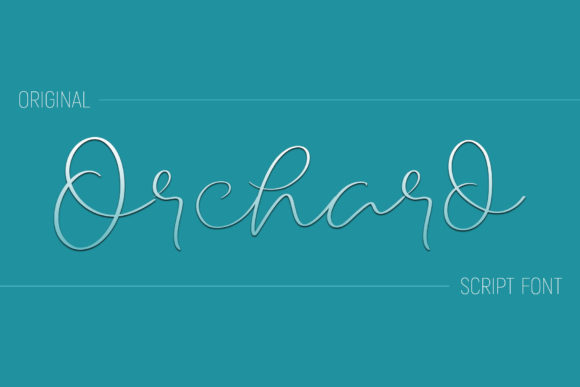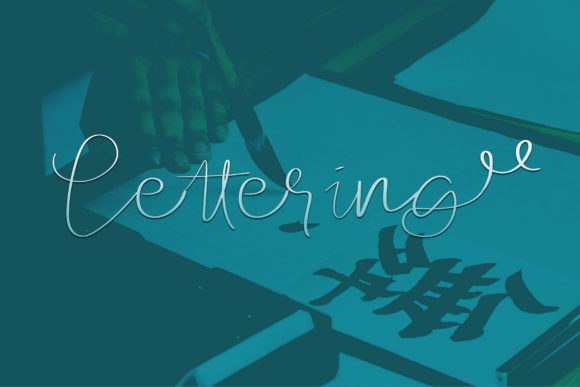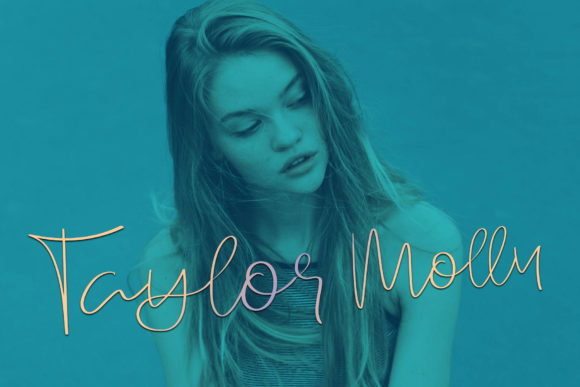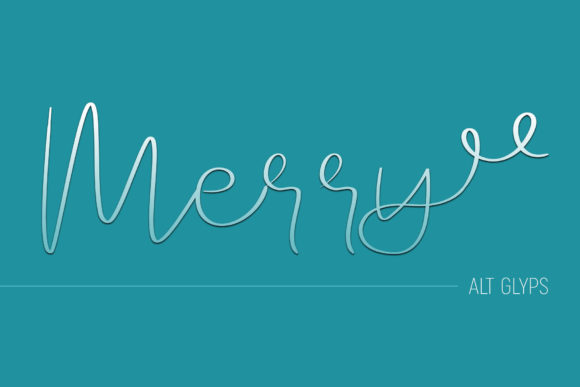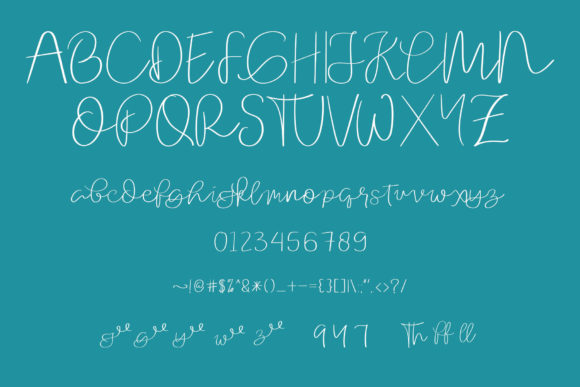
HomeScript FontsOrchard Font Script Fonts Orchard Font FacebookXPinterestWhatsApp Orchard Font Poster 2 Orchard Font Poster 3 Orchard Font Poster 4 Orchard Font Poster 5 About Orchard Font The Orchard is an elegant script font. It’s handwritten and perfect for adding an authentic look to your designs. DOWNLOAD ON CREATIVE FABRICAThis font is sold and delivered by Creative Fabrica. Font Canyon may earn a commission if you buy through this link. People also explored Blythe Font Autumn Font Bastyan Script Font Saturnus Font Magical Night Font Christmas Around Font Blink Script Font Highland Font Blackbeard Font 378 0 TagsOrchard Font Previous articleBellgonate Script FontNext articleRevelyna Font LEAVE A REPLY Cancel reply Comment: Please enter your comment! Name:* Please enter your name here Email:* You have entered an incorrect email address! Please enter your email address here Website: Save my name, email, and website in this browser for the next time I comment. Personal Use Free Farmgarden Personal Use Free Read more about this font 1313 Mockingbird Lane Personal Use Free Read more about this font Baby Mollusca Personal Use Free Read more about this font Hiters Personal Use Free Read more about this font BLOG The 10 Best Handwriting Fonts to Add Personality to Your Designs 10 of the Best Handwriting Fonts for Adding Personality to Your Designs There will undoubtedly be no other better choice than handwriting fonts to give... Fonts That Capture the Spirit of New York City Modern Sans-Serif Fonts That Brands Love in 2025 Using Fonts in Digital Marketing: Tips to Strengthen Your Brand Identity